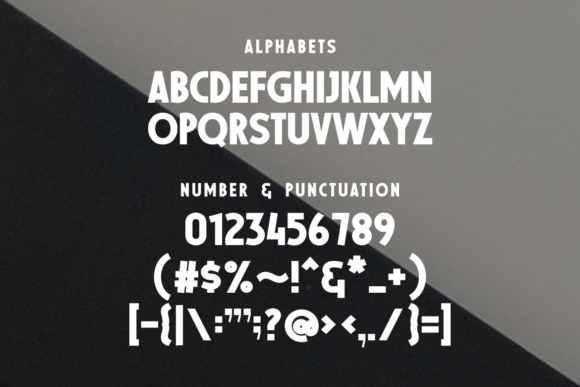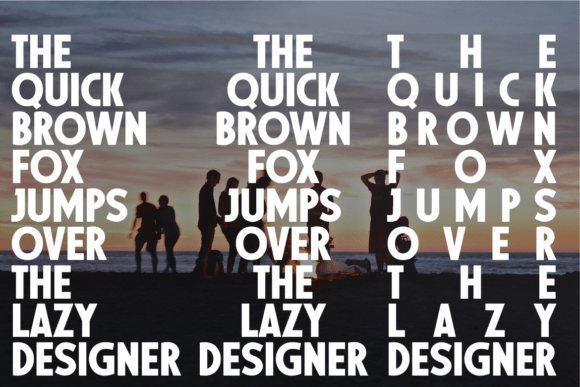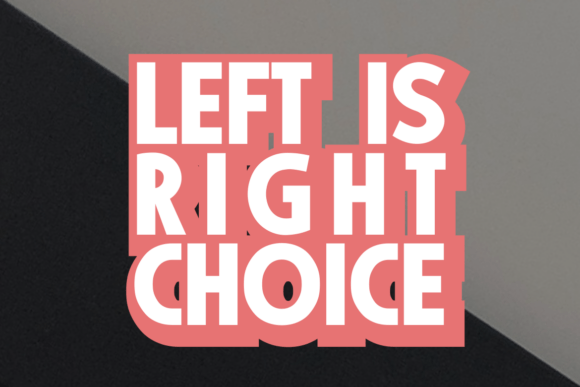
Fesho Evolution Font: Embodying the Spirit of Innovation and Progress
In the realm of typography, fonts play a pivotal role in shaping the visual identity of a brand, product, or design. Among the myriad of fonts available, Fesho Evolution stands out as a beacon of modernity and innovation. This robust, forward-thinking sans serif font is meticulously crafted to echo the spirit of progress and transformation, making it an ideal choice for designers, crafters, and tech pioneers.
The Essence of Fesho Evolution
Fesho Evolution is more than just a font; it’s a statement. Its sleek lines, vibrant curves, and contemporary configuration are thoughtfully designed to evoke a sense of futurism and dynamism. This font is not just about aesthetics; it’s about conveying a message of revolution, innovation, and forward-thinking. Whether you’re working on branding, packaging, or design projects, Fesho Evolution offers a unique opportunity to infuse your work with a modernistic edge.
Fesho Evolution’s design is characterized by its clean, sans serif lines that exude a sense of simplicity and sophistication. The font’s curves are meticulously crafted to add a touch of vibrancy and fluidity, making it highly versatile for various design applications. Its contemporary configuration ensures that your projects stand out with a fresh and modern look, appealing to audiences who appreciate cutting-edge design.
Mirroring Growth and Metamorphosis
The name “Fesho Evolution” is not just a label; it reflects the font’s inherent ability to mirror the constant dance of growth and metamorphosis. The progressing forms within the font capture the essence of transformation and advancement, making it a powerful tool for designers who aim to convey a sense of evolution and innovation in their work. With Fesho Evolution, you can create visual identities that not only look modern but also tell a story of progress and forward-thinking.
Applications of Fesho Evolution
Fesho Evolution’s versatility makes it suitable for a wide range of design applications. Here are some areas where this font truly shines:
- Revolutionary Branding: For brands that aim to disrupt the status quo, Fesho Evolution offers a typographic solution that screams innovation and progress.
- Tech Pioneers: Tech companies and startups looking for a font that embodies their forward-thinking approach will find Fesho Evolution to be an excellent choice.
- Minimalist Packaging: The font’s sleek and modern design makes it perfect for minimalist packaging, adding a touch of sophistication and elegance to product designs.
- Design Work: For designers looking to create work that’s a step ahead, Fesho Evolution provides the perfect blend of modernity and functionality.
Why Choose Fesho Evolution?
Choosing Fesho Evolution for your design projects comes with numerous benefits:
- Unique Visual Identity: The font helps you create a unique visual identity that stands out in a crowded market.
- Modern Aesthetic: It adds a modernistic aesthetic to your projects, making them more appealing to contemporary audiences.
- Versatility: Fesho Evolution’s versatility ensures it can be used across various design applications, from digital platforms to print materials.
- Echoes Innovation: The font effectively communicates a message of innovation and progress, aligning perfectly with brands and projects that aim to make a forward-thinking statement.
| Font Name | Fesho Evolution Font |
| Author | Monoletter |
Fesho Evolution is not just a font; it’s a design statement that echoes progress, innovation, and forward-thinking. Its sleek lines, vibrant curves, and contemporary configuration make it the perfect choice for designers, crafters, and tech pioneers looking to create visual identities that embrace tomorrow. By choosing Fesho Evolution, you’re not just selecting a typographic solution; you’re adopting a design philosophy that places innovation and modernity at its core. Immerse your projects in a wave of energy and modernistic aesthetics with Fesho Evolution, and make a bold statement about your commitment to progress and transformation.